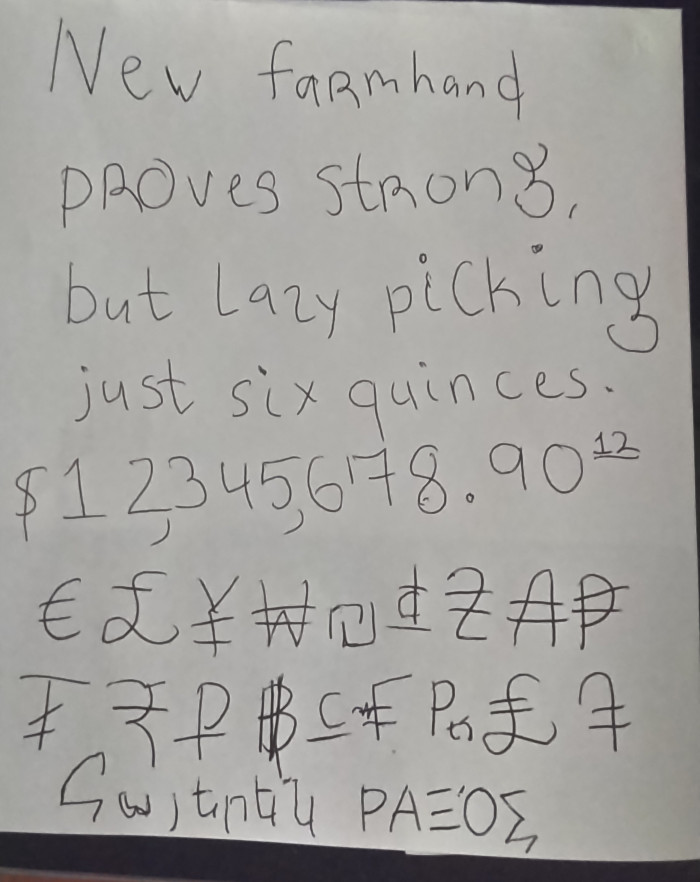
The "g" is a very clever solution~
@tortoiseshell that's BWM's unique "g"...
And yes, I write my g's like that.
I also write my r's as a small cap R, so it won't get mixed up with the letter n, but I don't make fonts with r's like that
this and biqmak are similar